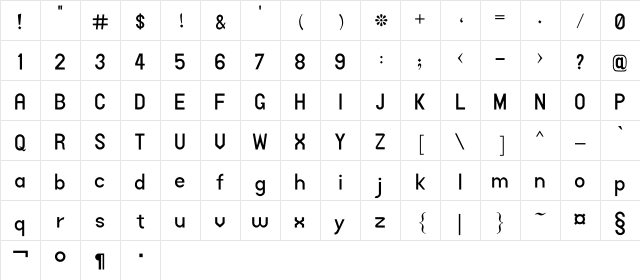
Complete AlFars 24 Ahram Regular glyph index. Displaying only characters natively supported by AlFars 24 Ahram Regular font.
AlFars 24 Ahram is a composed and adaptable typeface that performs quietly and consistently across a wide range of design contexts.
Pro Tip: Use AlFars 24 Ahram in both headline and body roles to test its range before committing to a single application.